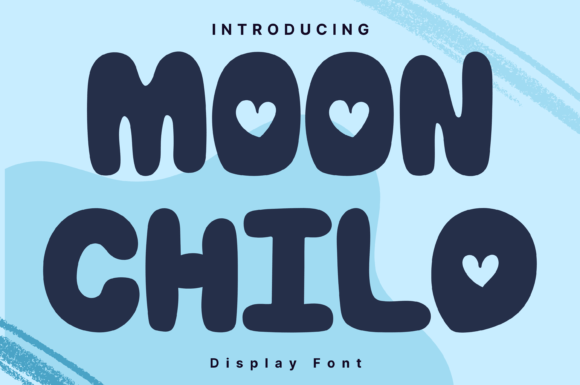
In a world saturated with digital monotony, Moon Child Font emerges as a breath of fresh air, a testament to the enduring allure of handwritten charm. With its whimsical strokes and playful innocence, this display font captivates the imagination, inviting you to embrace the magic of creativity.
Moon Child Font is the perfect companion for your literary adventures, effortlessly enhancing your e-reading experience on Moon+ Reader. Its clean lines and easy-on-the-eyes design create a reading haven, allowing you to immerse yourself in the written word without distraction.
Beyond the realm of e-reading, Moon Child Font shines as a versatile chameleon, effortlessly adapting to a myriad of creative projects. Whether you're crafting heartfelt invitations, whimsical posters, or enchanting social media graphics, Moon Child Font will add a touch of whimsy and personality, making your designs truly unforgettable.
With its ability to transform ordinary words into captivating works of art, Moon Child Font is a must-have for creative minds seeking to make a statement. Let your imagination soar as you explore the endless possibilities that await with this extraordinary font.